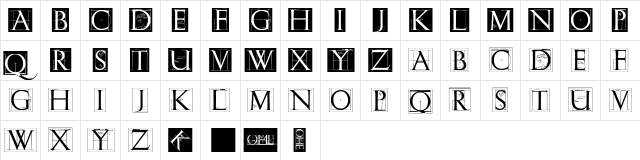
ErikGCapsSkInvers Regular Font Preview
ErikGCapsSkInvers Regular
Design Context for ErikGCapsSkInvers Typeface
ErikGCapsSkInvers offers clean, dependable letterforms without strong stylistic allegiance, making it a practical choice for designers who need flexibility.